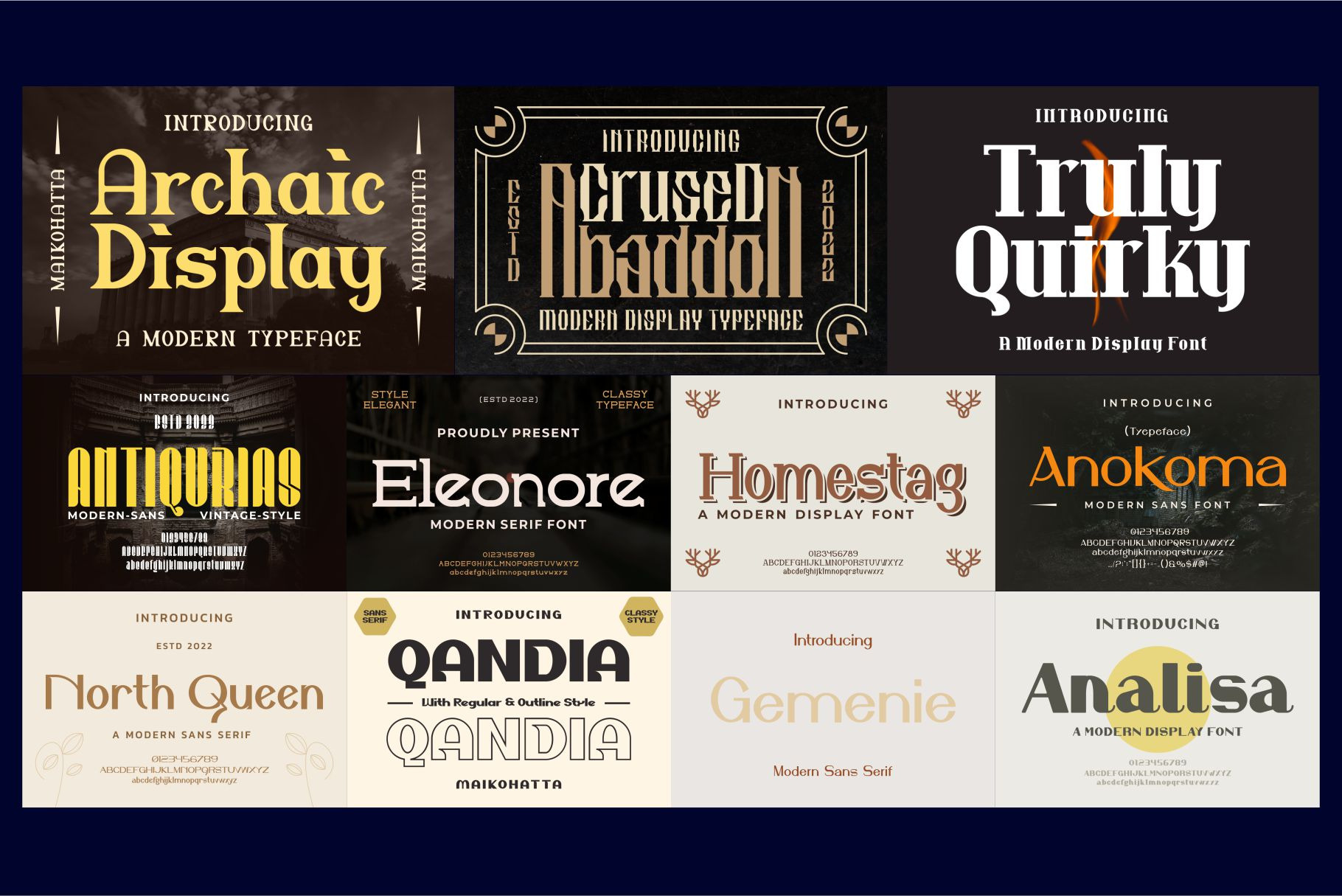
Bundle Elegant Font
Bundle Elegant Font - Modern Font is a bold and authentic display font. The font is suitable for any branding project like logo, t-shirt printing, esport, and many more. outstanding in a wide range of contexts.
Type elegant Font
- Serif
- sansserif